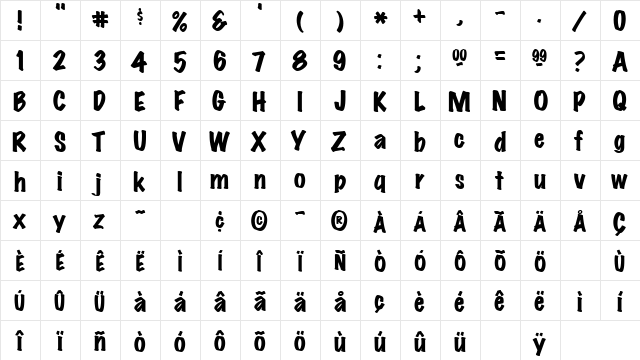
MarkerFeltWide-Plain Regular Font Preview
MarkerFeltWide-Plain Regular
Design Context for MarkerFeltWide-Plain Typeface
MarkerFeltWide-Plain is a composed and adaptable typeface that performs quietly and consistently across a wide range of design contexts.